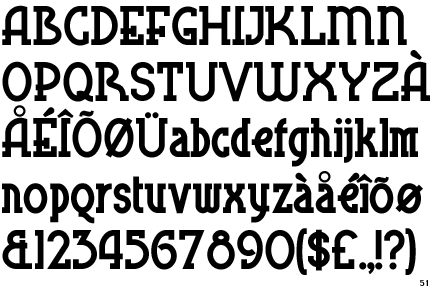
Based on Cubist Bold, designed by John Zimmerman for Barnhard Brothers and Spindler, around 1929.
Designer: Nick Curtis
Year: 2001
Publisher: Nick's Fonts